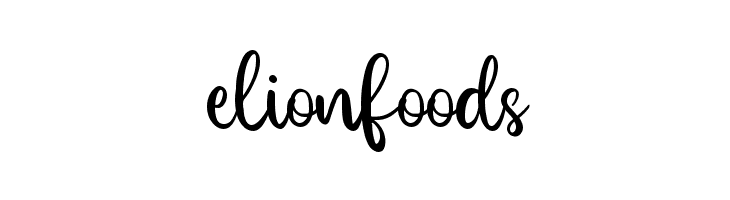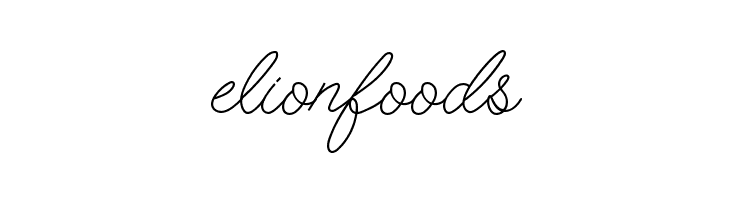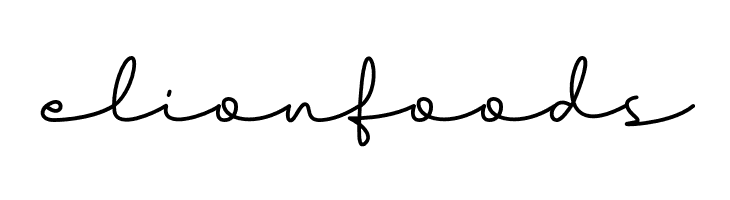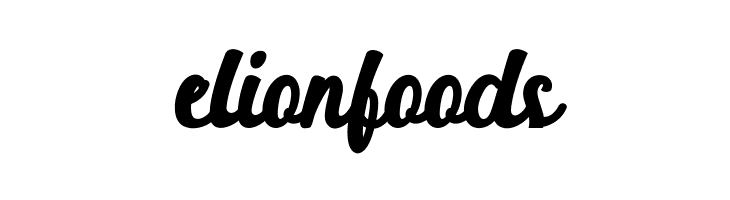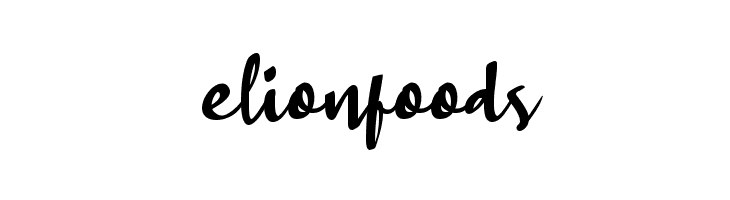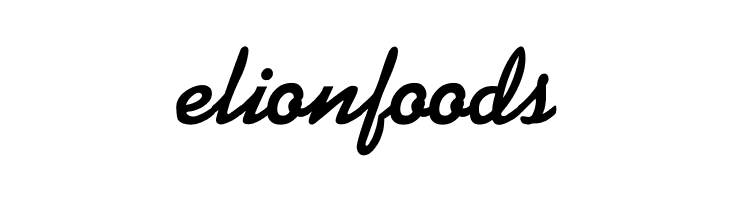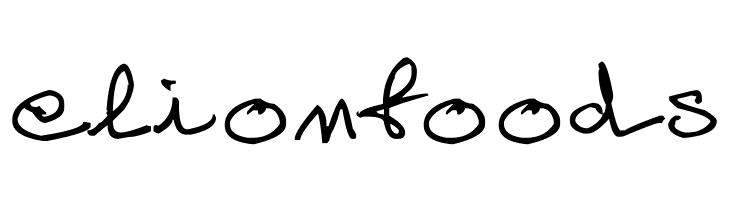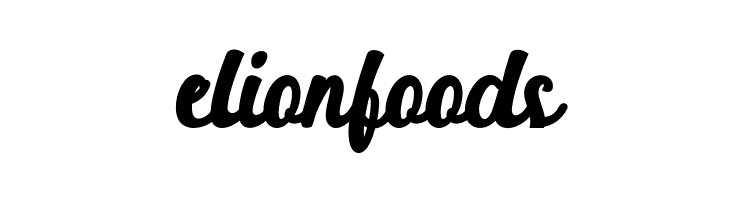
A graceful and fluid script font with interconnected letters and elegant curves.
A whimsical and elegant font with decorative swirls and curls.
A fluid, cursive font with a natural handwriting style.
A playful, casual handwritten font with a whimsical and informal style.
A playful and casual handwritten font with dynamic strokes.
A bold, flowing script font with smooth, connected strokes and rounded edges.
A bold, cursive font with a playful and energetic style.
A bold, cursive font with elegant, flowing strokes.
A lively, flowing script font with elegant connections and a personal touch.